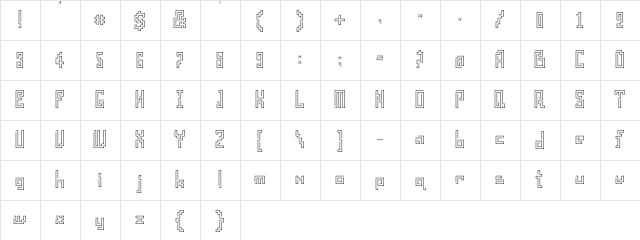
Pype is a composed and adaptable typeface that performs quietly and consistently across a wide range of design contexts. Its slender proportions lend an understated elegance to any composition.